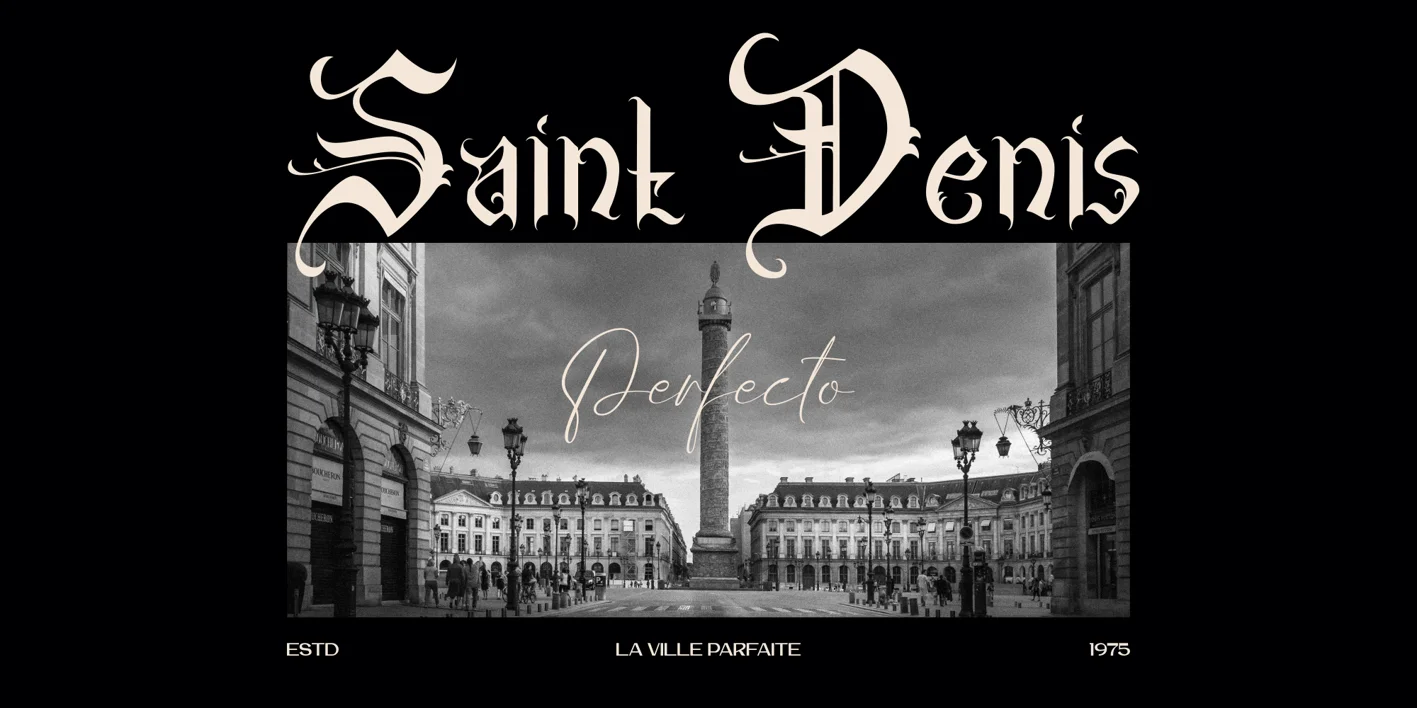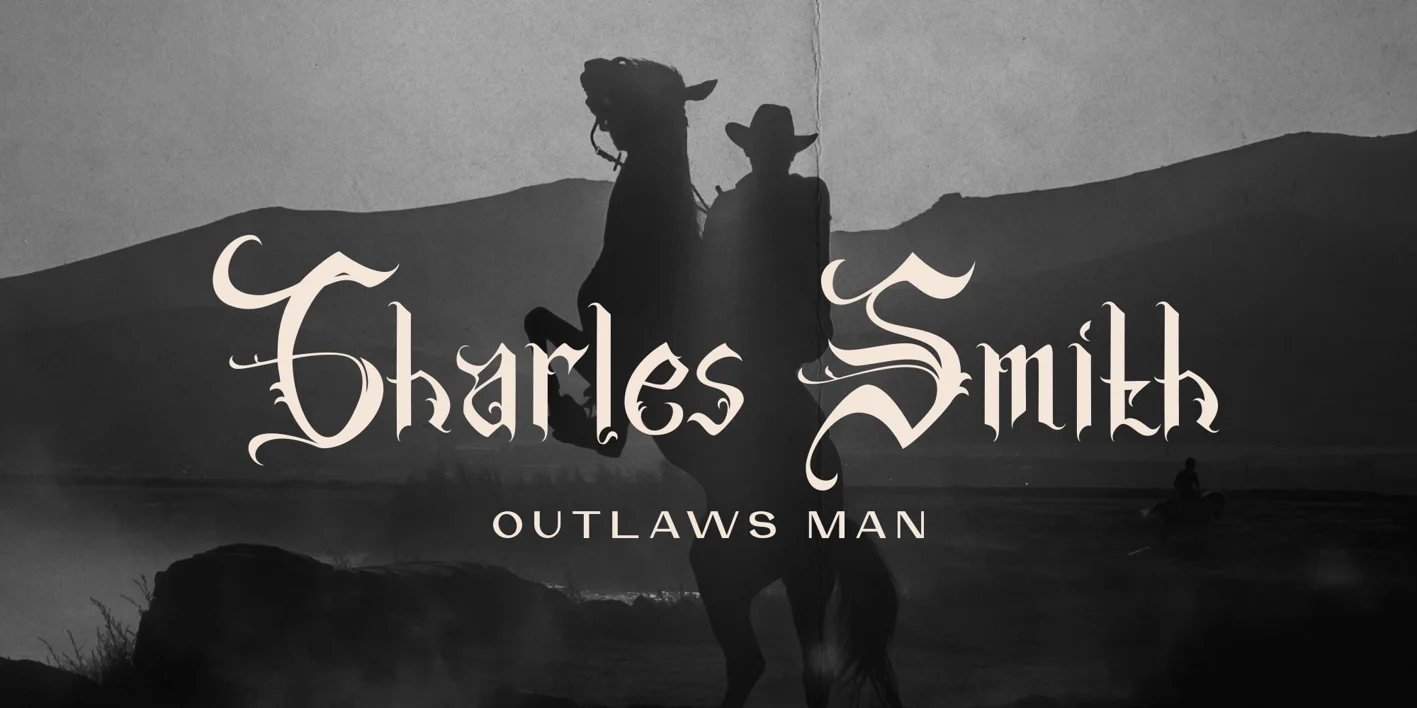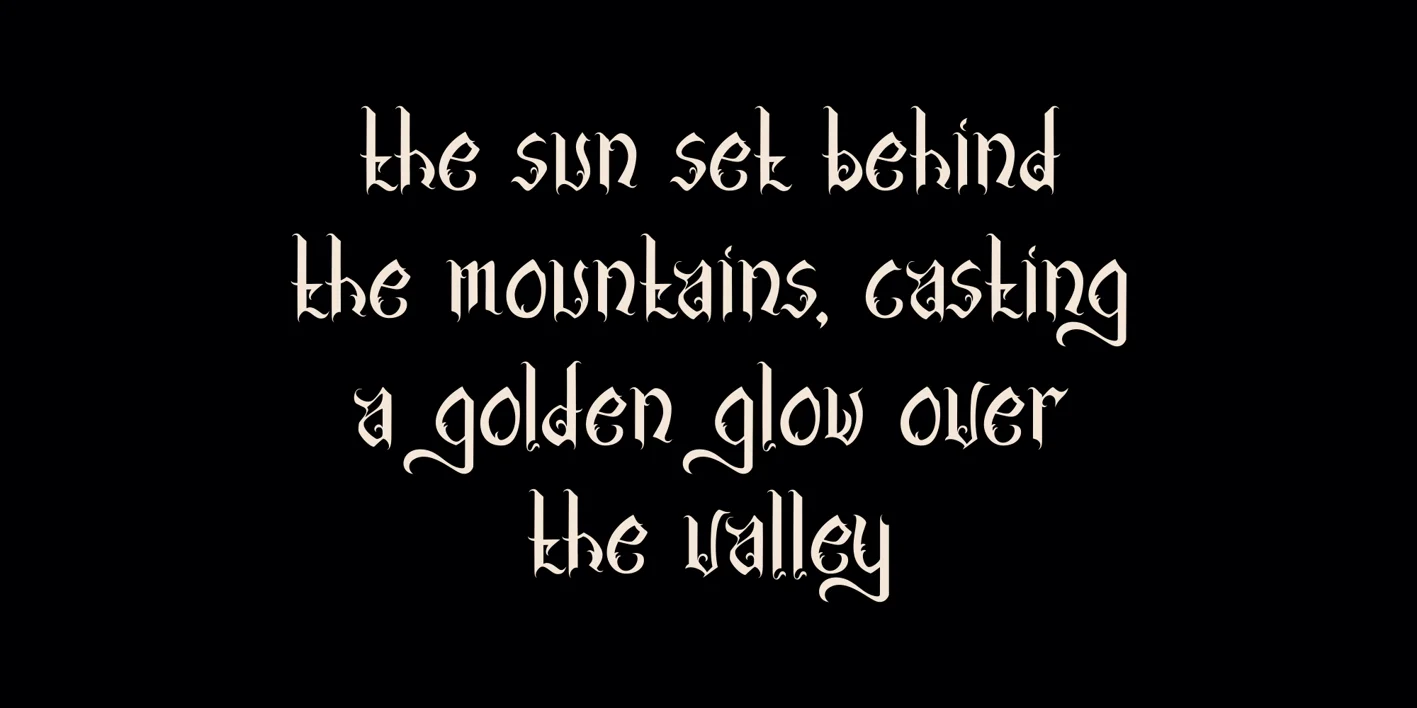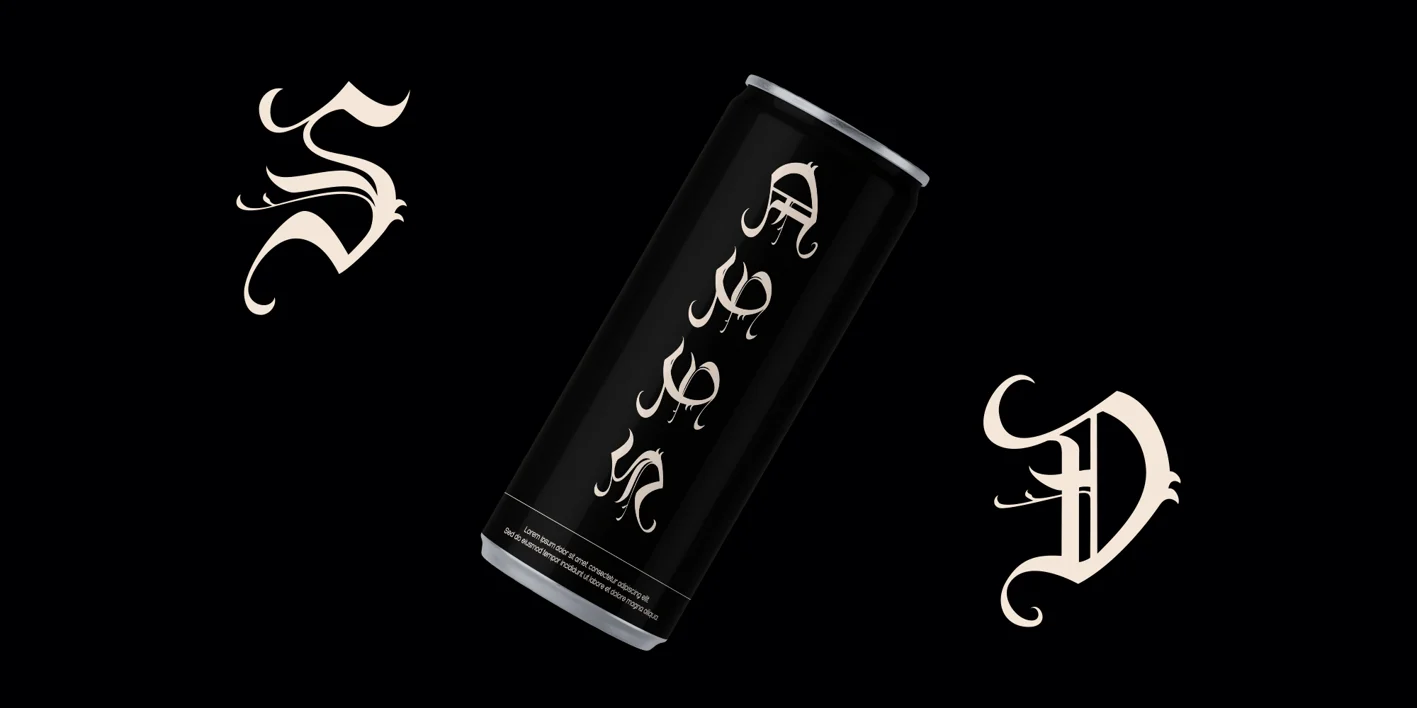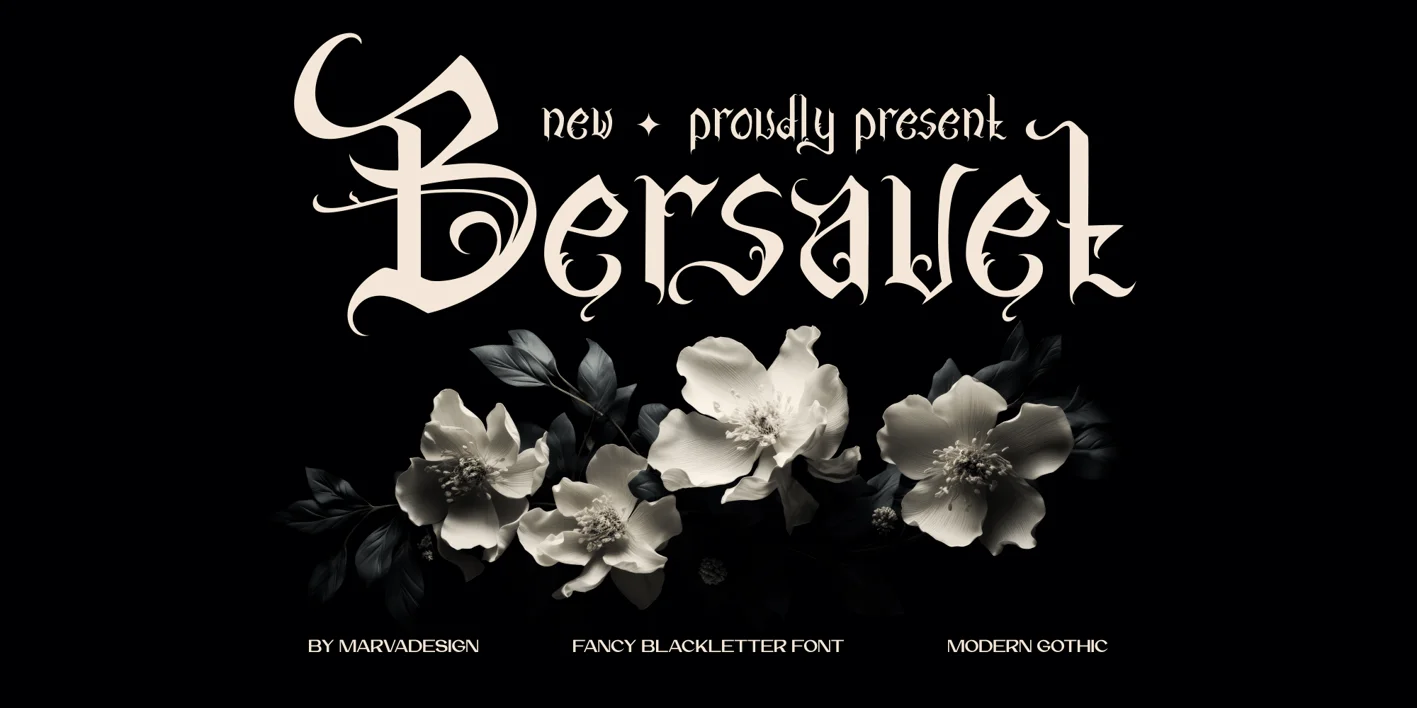
Bersavet Font
A good typeface communicates tone before a single word is read. Bersavet achieves this through controlled contrast that rewards close inspection. The typeface brings a versatile sensibility to a broad range of creative disciplines, with optical balance across all weights that holds up whether the work is print-first or screen-first.
In practice, Bersavet proves particularly effective for logo design, product labels, poster creation, editorial layouts, signage systems. Designers reaching for it find that the type decisions feel resolved rather than laboured — a useful quality when client timelines are tight.
The range of applications extends to environmental graphics, brand identity systems, annual reports, advertising campaigns. That breadth is deliberate: the proportions and spacing were stress-tested across a wide range of mock briefs before the typeface was finalised.
Bersavet sits comfortably alongside both classic and contemporary typefaces in multi-font hierarchies. It takes direction rather than competing for attention — a quality that experienced designers know is harder to find than it appears.
Art directors commissioning type-led campaigns find Bersavet a reliable choice for projects that demand both personality and restraint. The design avoids the self-conscious quirkiness that dates quickly, settling instead for considered distinctiveness that holds up over time.